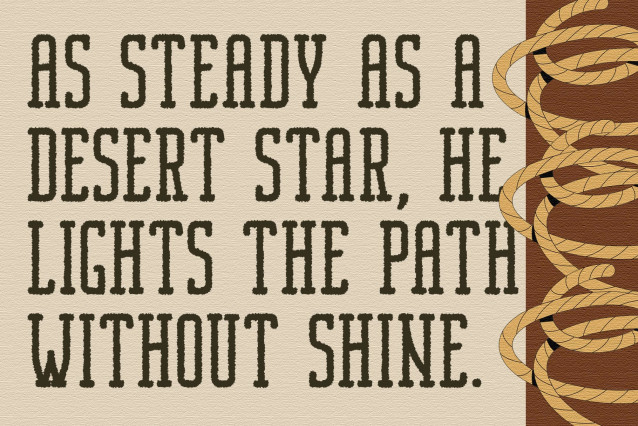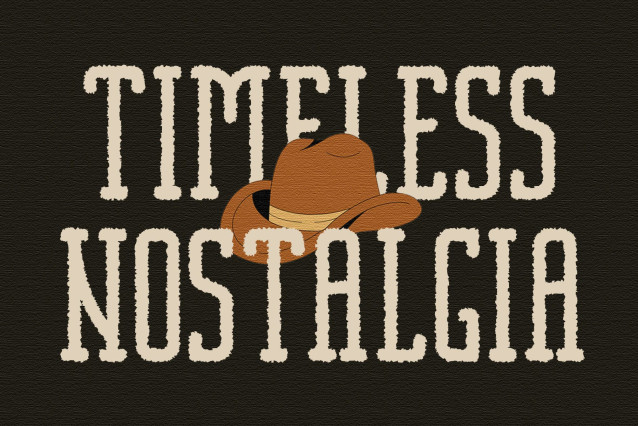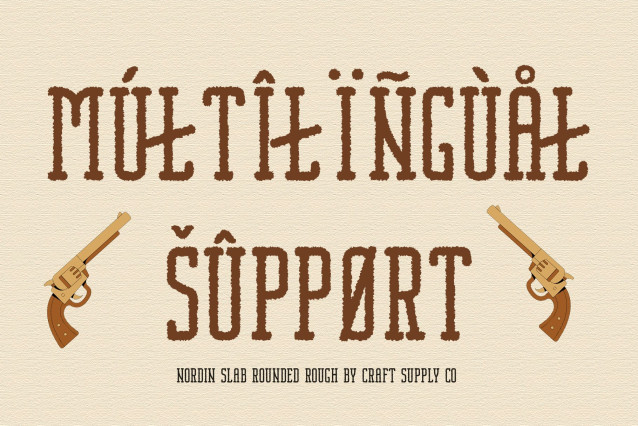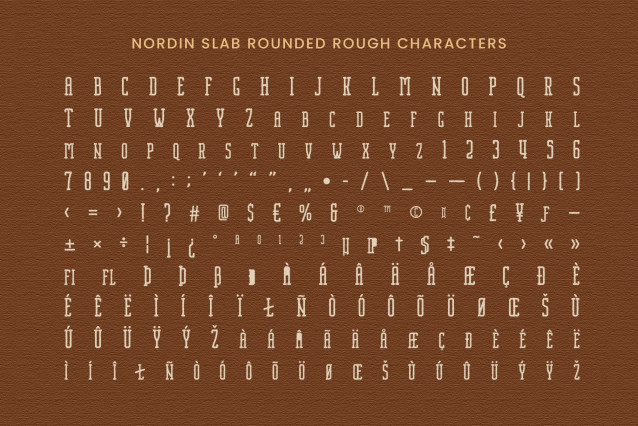
Nordin Slab Rounded Rough Font
Nordin Slab Rounded Rough Font is a modern serif font with a strong slab serif structure and a condensed form, offering a compact yet commanding visual presence. Its dense, solid build ensures clarity and impact, making it ideal for headlines and branding where space and strength must work together.